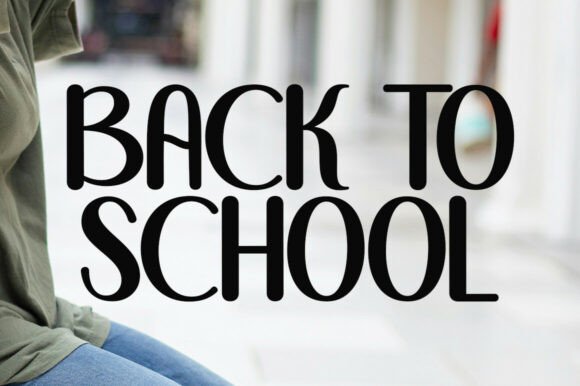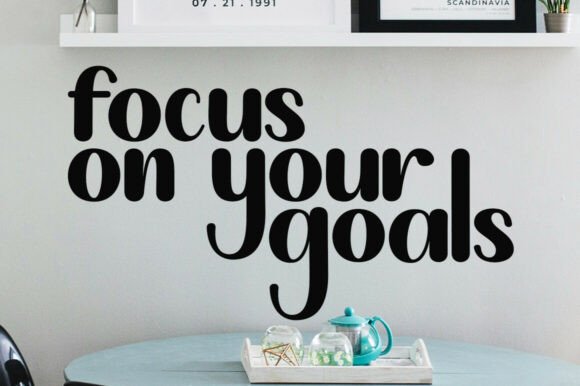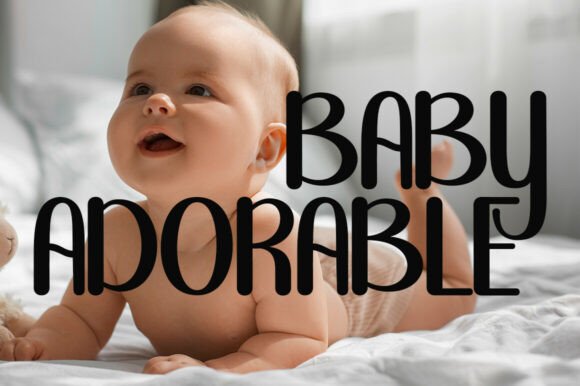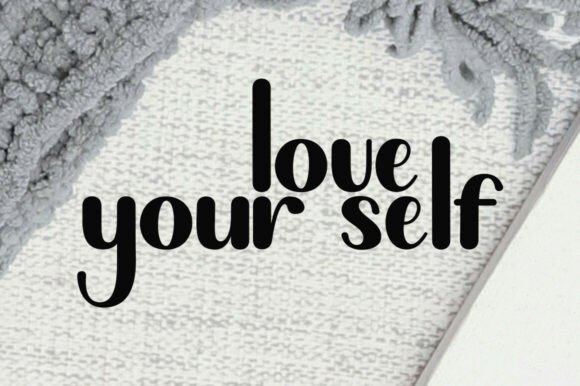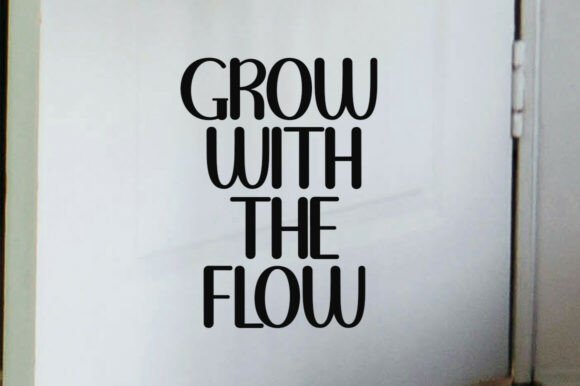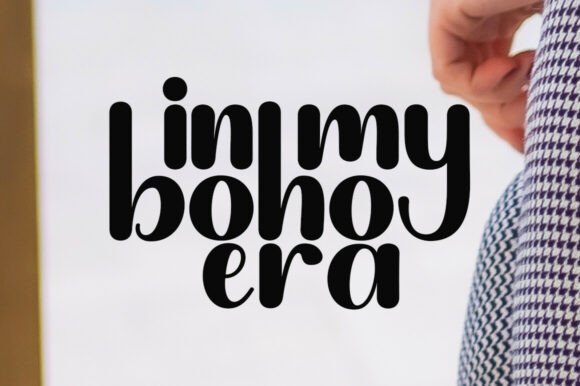
Discover the Enchanting World of Alphabet Magical Font
Have you ever been in the middle of a design project, and suddenly, you’re stuck on finding the perfect font? I recall a particularly frustrating experience while working on a client’s branding project. The client wanted a font that was playful, yet elegant, and I was determined to find it. That’s when I stumbled upon Alphabet Magical, a meticulously crafted handwritten font that has since become a staple in my design toolkit.
A Personal Review of Alphabet Magical
- ✅ The whimsical and imaginative feel that adds a touch of magic to any design project
- ✅ A wide range of OpenType features, glyphs, and stylistic alternates that offer endless creative possibilities
- ✅ The font’s versatility, making it suitable for various media, including tote bags, hoodies, mugs, pouches, phone cases, and even small figurines
- ✅ The universal sentiment it carries, ensuring a successful creative journey in every endeavor
- ⚠️ Limited multilingual support, mainly focused on English and some European languages
The Backstory Behind Alphabet Magical
Alphabet Magical was designed with the intention of creating a font that would inspire creativity and imagination. The designer, a passionate typographer, aimed to craft a font that would be both elegant and playful, making it suitable for a wide range of design projects. With a focus on detail and a love for handwritten typography, Alphabet Magical was born.
| What type of designs is Alphabet Magical best suited for? | Alphabet Magical is versatile and can be used for various design projects, including tote bags, hoodies, mugs, pouches, phone cases, and even small figurines. |
| Does Alphabet Magical support multilingual languages? | Although Alphabet Magical has some support for multilingual languages, it is mainly focused on English and some European languages. |